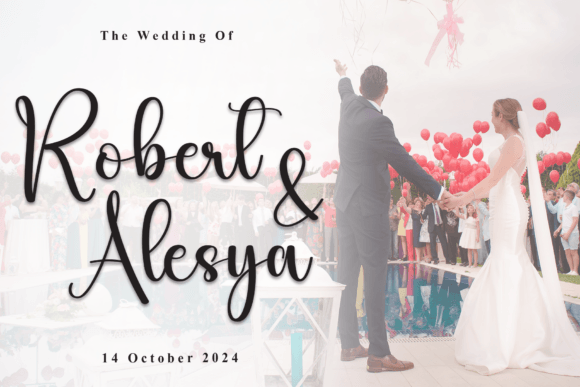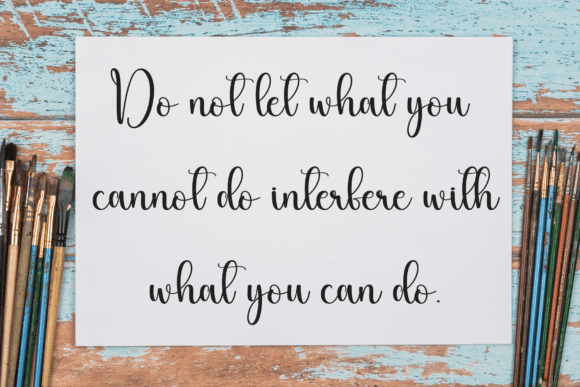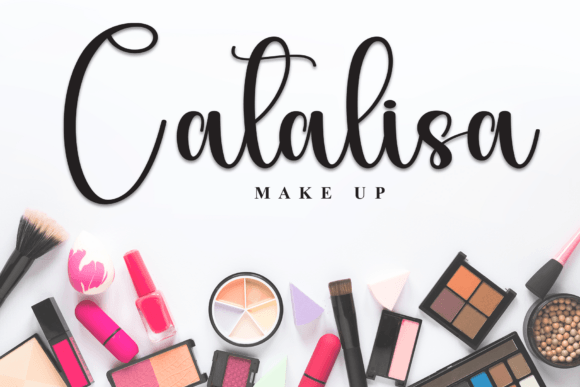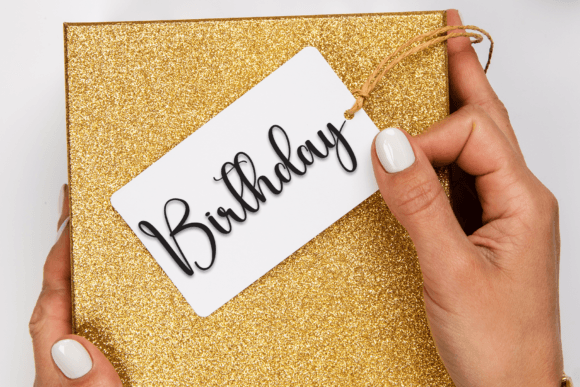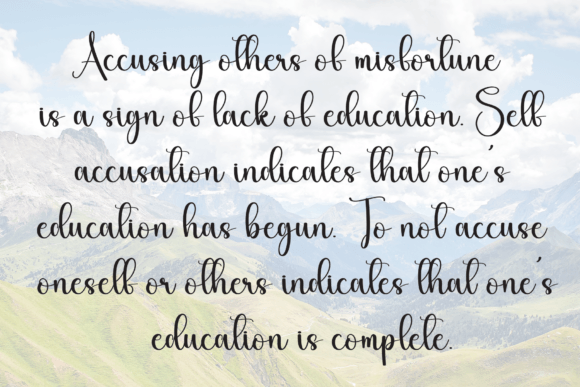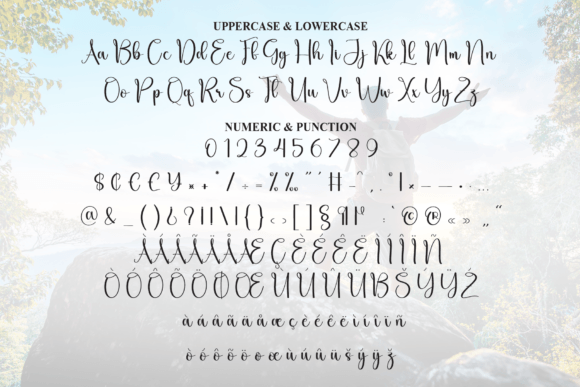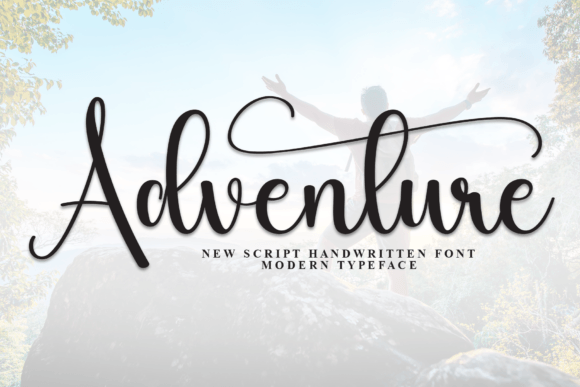
Discover the Charm of Adventure Font: A Handwritten Delight
Are you on the hunt for a font that exudes warmth, coziness, and a sense of adventure? Look no further than Adventure Font, a charming handwritten font that’s perfect for adding a personal touch to your designs. With its playful letters, soft curves, and casual vibe, this font is sure to capture the hearts of designers, crafters, and anyone looking to add a dash of personality to their projects.
The Unique Style of Adventure Font
Adventure Font boasts a unique style that’s both whimsical and inviting. Its handwritten letters have a warm, friendly feel that’s reminiscent of a cozy night in by the fireplace. The font’s soft curves and rounded edges give it a gentle, approachable quality that’s perfect for creating a sense of comfort and relaxation. Whether you’re designing a personal note, invitation, or craft project, Adventure Font is sure to bring a smile to the recipient’s face.
Perfect for Personal and Creative Projects
So, what makes Adventure Font so special? For starters, its playful letters and casual vibe make it perfect for personal projects, such as:
- Handwritten notes and letters
- Custom invitations and party decor
- DIY craft projects, such as scrapbooking and card-making
- Personalized gifts, like journals and mugs
But Adventure Font isn’t just limited to personal projects. Its unique style and charm also make it suitable for creative endeavors, such as:
- Blog and website design
- Marketing materials, like brochures and flyers
Why Choose Adventure Font?
So, why should you choose Adventure Font for your next project? Here are just a few reasons:
- Warm and inviting: Adventure Font’s warm, friendly vibe is sure to make your designs feel cozy and approachable.
- Unique and playful: This font’s playful letters and soft curves make it stand out from more traditional fonts.
- Versatile: Adventure Font is suitable for a wide range of projects, from personal notes to branding and marketing materials.
- Easily readable: Despite its playful nature, Adventure Font is easy to read, making it perfect for body text and captions.
Tips for Using Adventure Font
To get the most out of Adventure Font, here are a few tips to keep in mind:
- Pair with contrasting fonts: Combine Adventure Font with a more traditional font to create visual interest and contrast.
- Use for headings and titles: Adventure Font’s playful nature makes it perfect for headings and titles, adding a touch of whimsy to your designs.
- Experiment with colors: Try pairing Adventure Font with a range of colors, from soft pastels to rich jewel tones, to add depth and personality to your designs.
In conclusion, Adventure Font is a charming handwritten font that’s perfect for designers, crafters, and anyone looking to add a touch of warmth and personality to their projects. With its unique style, playful letters, and casual vibe, this font is sure to capture the hearts of anyone who sees it. So why not give Adventure Font a try? Your designs are sure to thank you!